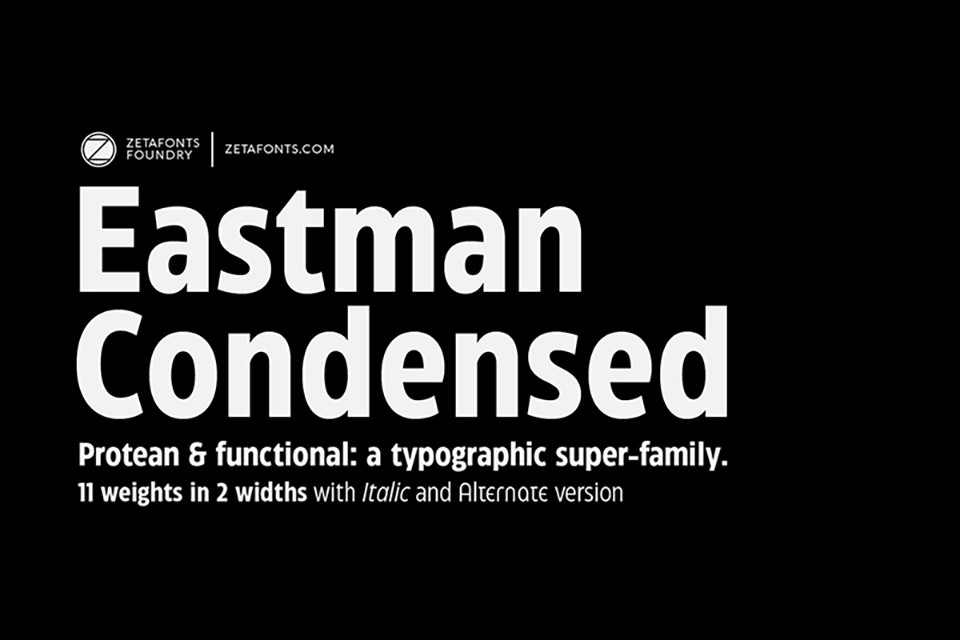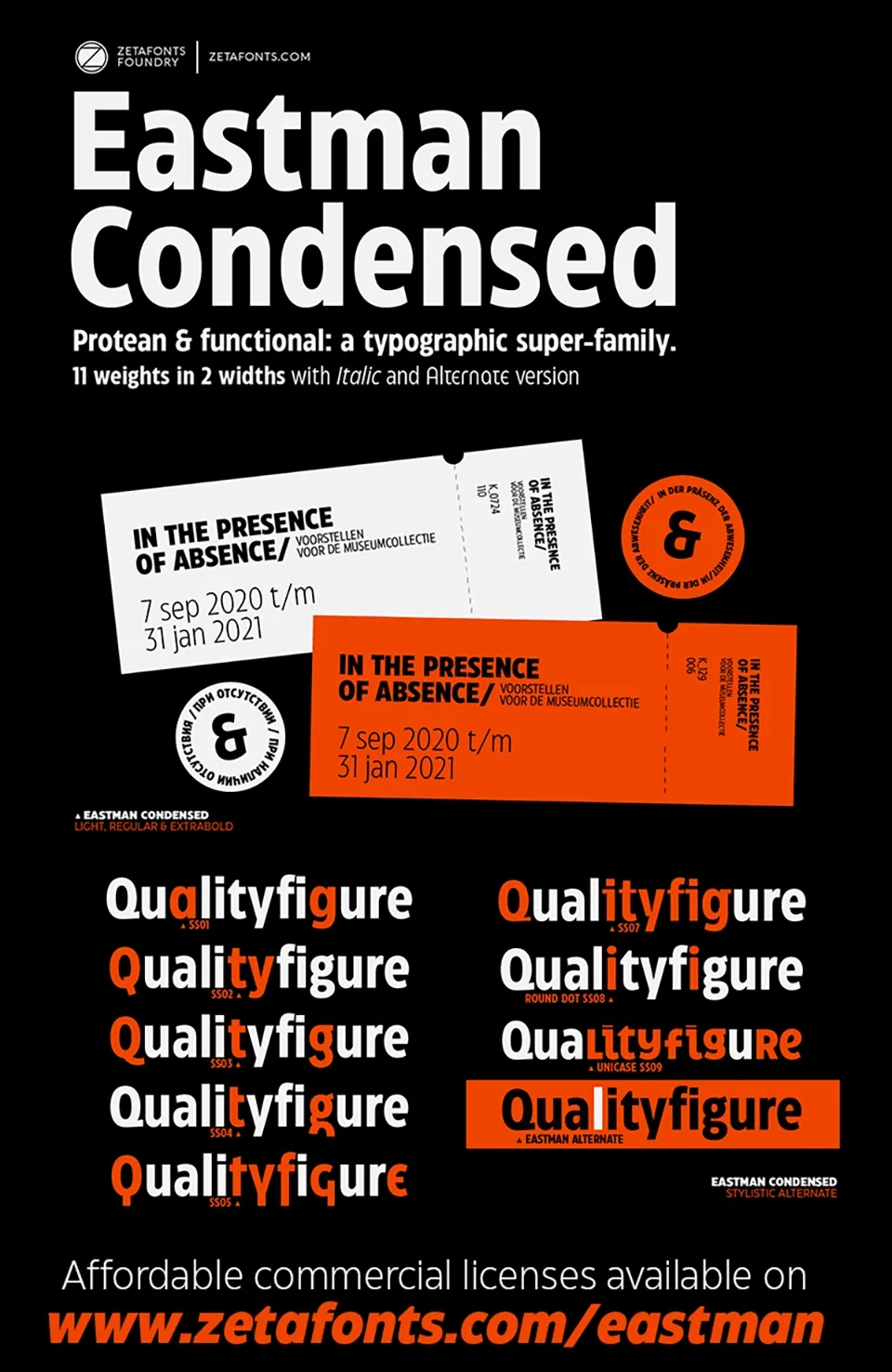
Eastman Condensed Font Family is a geometric sans-serif typeface family designed in 2020 by Francesco Canovaro and Andrea Tartarelli, with contributions from Solenn Bordeau and Cosimo Lorenzo Pancini for Zetafonts. This versatile font family features a space-saving condensed design with a solid monolinear structure and tall x-height, making it highly readable both in print and on screen. The family includes multiple weights from Thin to Heavy, each with matching italics, and offers extensive language support with over 1,200 characters covering Latin, Cyrillic, and Greek scripts. Its design philosophy blends Bauhaus ideals and contemporary minimalism while paying homage to 19th-century grotesque typefaces, making it an excellent choice for both display and text applications.